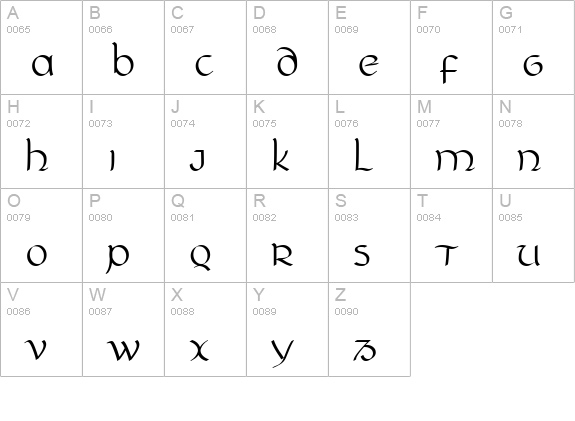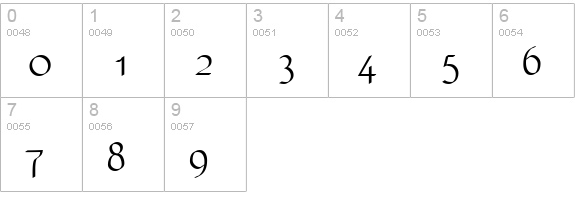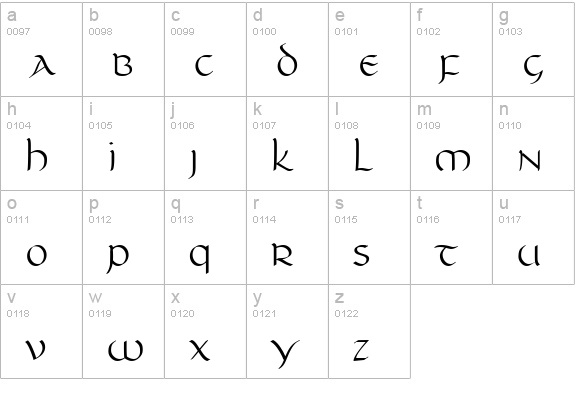
Unikled Plain Font Details
Unikled Plain is a stunning and versatile font that combines elegance with simplicity. Its clean lines and minimalist design make it perfect for a wide range of projects, from modern logos to stylish invitations. This font features a unique combination of rounded edges and sharp angles, creating a captivating visual impact. Unikled Plain stands out for its legibility and readability, making it an excellent choice for both print and digital media. Whether you're designing a website, crafting a brochure, or creating eye-catching social media graphics, this font will effortlessly enhance your message and capture your audience's attention. What sets Unikled Plain apart is not only its remarkable aesthetic appeal but also its accessibility. This font is available for free download at FontsMarket.com, allowing you to effortlessly incorporate it into your creative projects without breaking the bank. With Unikled Plain, you can add a touch of sophistication and professionalism to your designs, all while enjoying the convenience of a freely available font. Unikled Plain comes with an extensive character set, including uppercase and lowercase letters, numerals, punctuation marks, and special characters. Its wide language support ensures that you can express your ideas in various languages and communicate effectively with a diverse audience. With Unikled Plain, you have the freedom to explore endless possibilities in your design journey. From corporate branding to personal projects, this font is a reliable companion that will elevate your creations to new heights. So why wait? Download Unikled Plain today from FontsMarket.com and unlock your creative potential!